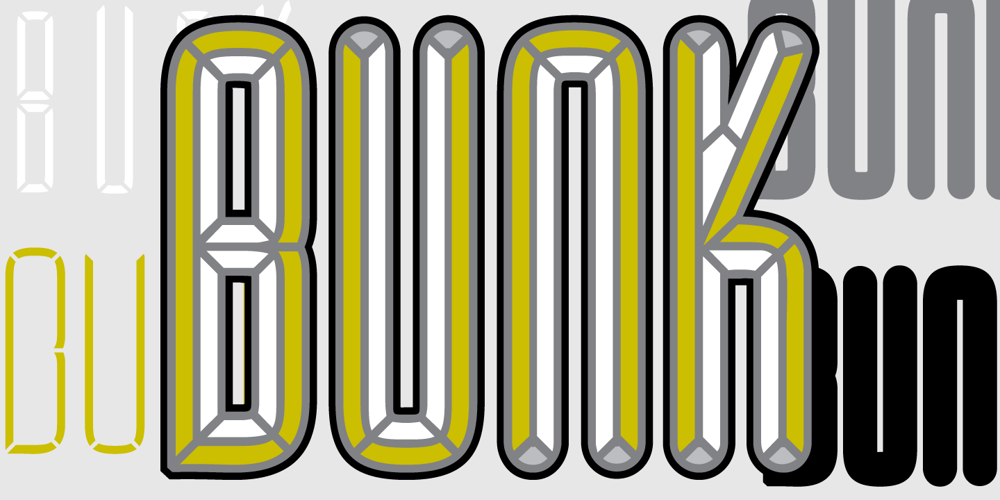
BUNK Font Family was designed by published by AdultHumanMale. BUNK contains 6 styles and family package options. BUNK is an 11 font system that can be layered in different ways to create various classic titling effects, think Old Timey signage ‘COME IN WE’RE OPEN’. It’s a display font that produces the different results by mixing and matching the various fonts together. Bunk’s layer combos give you the control to create brilliant bevel, convex and 3-D styles. Each font contains the same metrics, so when your title is set, copy and paste-in-place to create layers of different weights/styles to build out your desired effect. Unlike other Layered Fonts out there, BUNK has upper case and lower case as well as currency symbols and lots of foreign characters too. Over 180 glyphs!. Five of the fonts (Shades 1,2,3,4,5) are clearly dependent on each other to create a complete font, so theses are only available in the Full family pack (11 fonts) or in the Layer Kit Family pack (7 fonts).